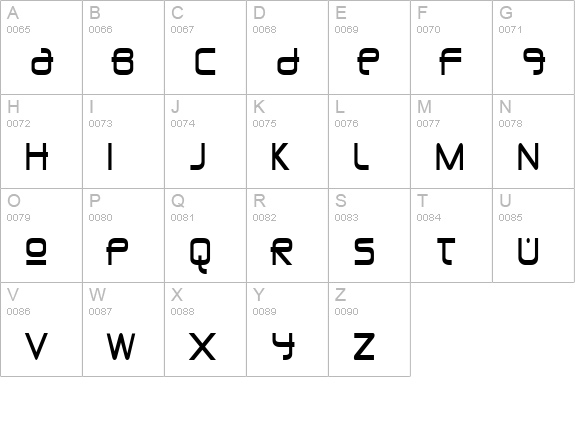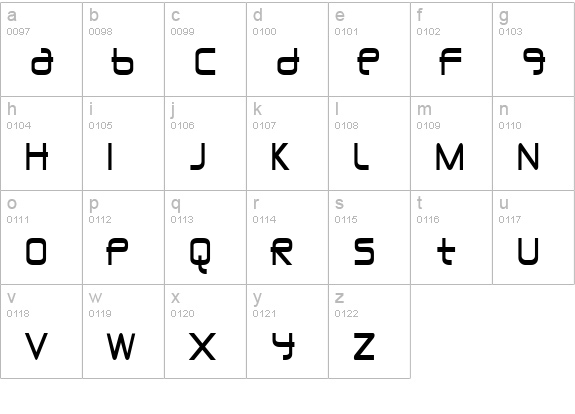
Union City Blue is a captivating font that seamlessly blends modernity with a touch of retro charm. With its sleek and sophisticated design, this font exudes a sense of elegance and professionalism that is perfect for a wide range of creative projects. Inspired by the vibrant energy of city life, Union City Blue brings a unique urban flair to any typographic composition. Its clean lines and stylish curves create a harmonious balance, making it both visually appealing and highly legible. Whether used for headlines, logos, or body text, this font instantly grabs attention and leaves a lasting impression. One of the standout features of Union City Blue is its versatility. It effortlessly adapts to various design styles, from contemporary to vintage, making it a go-to choice for designers and creatives alike. Its timeless appeal ensures that it remains relevant and eye-catching in any context. And the best part? Union City Blue is freely available to download at FontsMarket.com. This means that you can easily access this remarkable font and incorporate it into your projects without any hassle. Whether you're a graphic designer, a web developer, or simply someone who appreciates the beauty of typography, Union City Blue is a must-have addition to your font collection. So, why wait? Discover the endless possibilities that Union City Blue offers and elevate your designs to new heights. Download this exceptional font today and let your creativity soar.